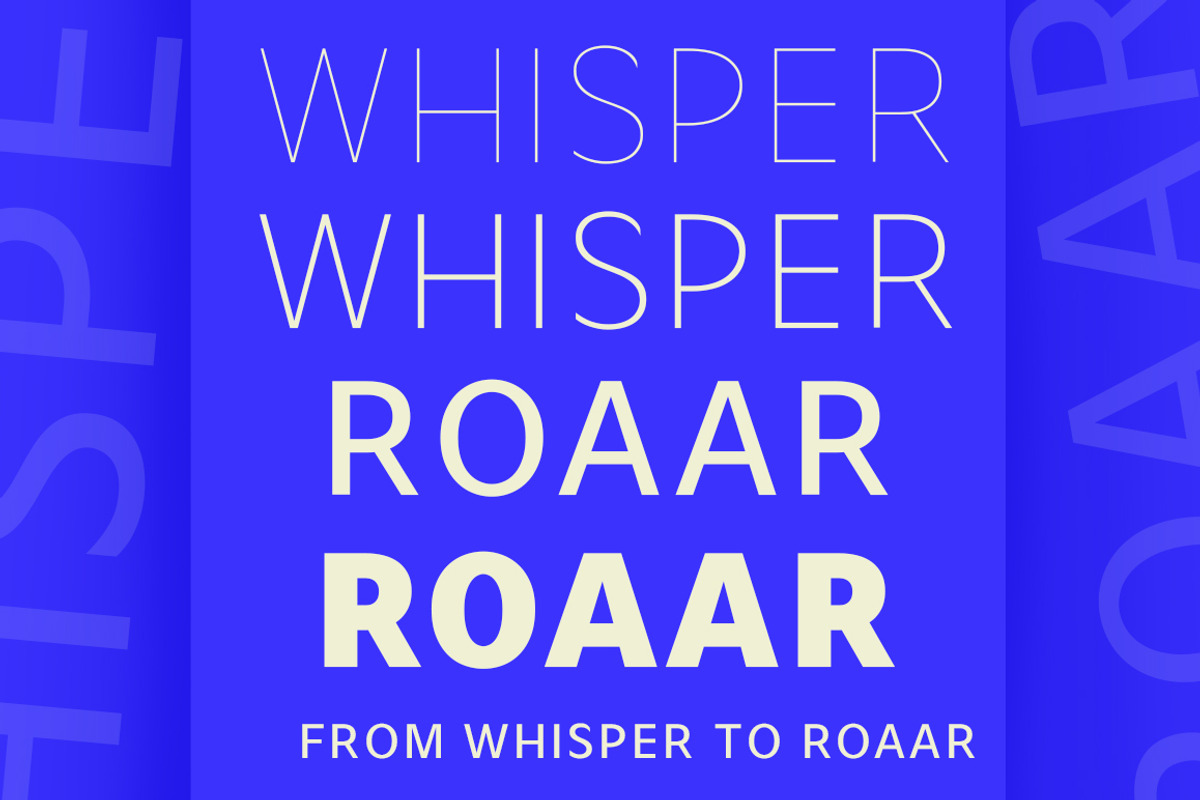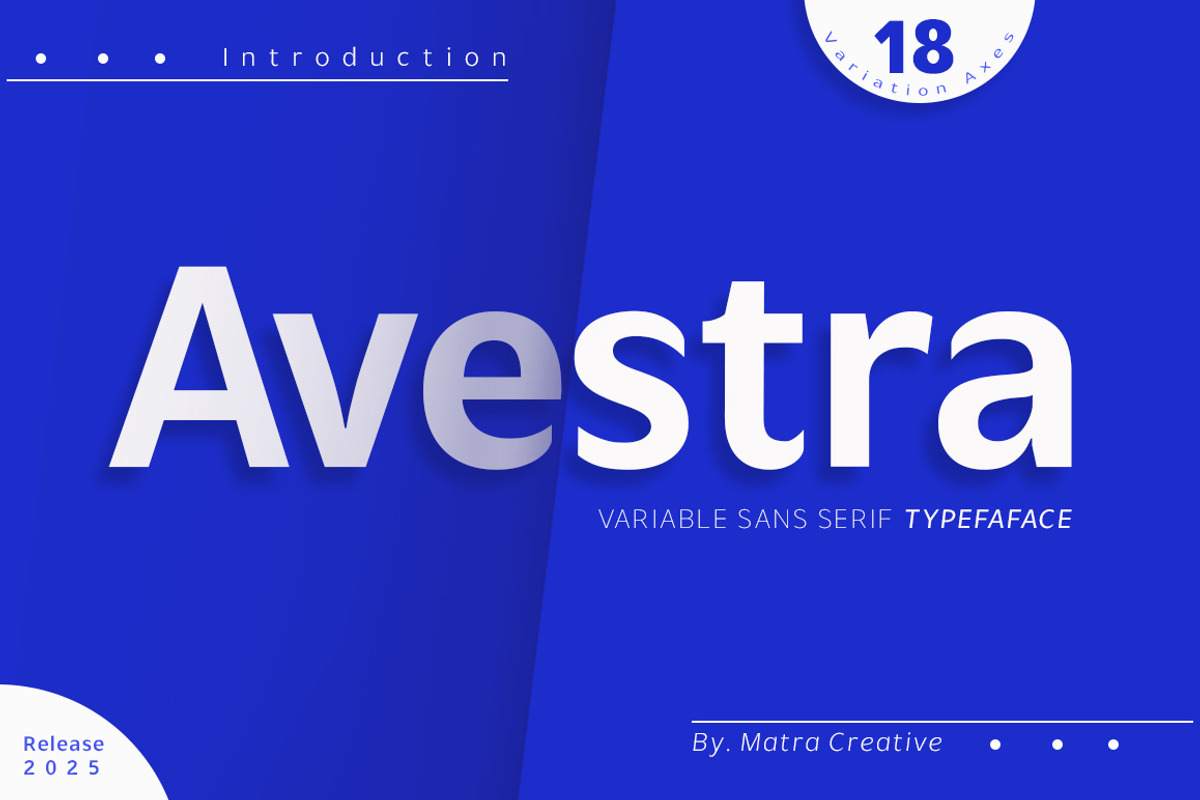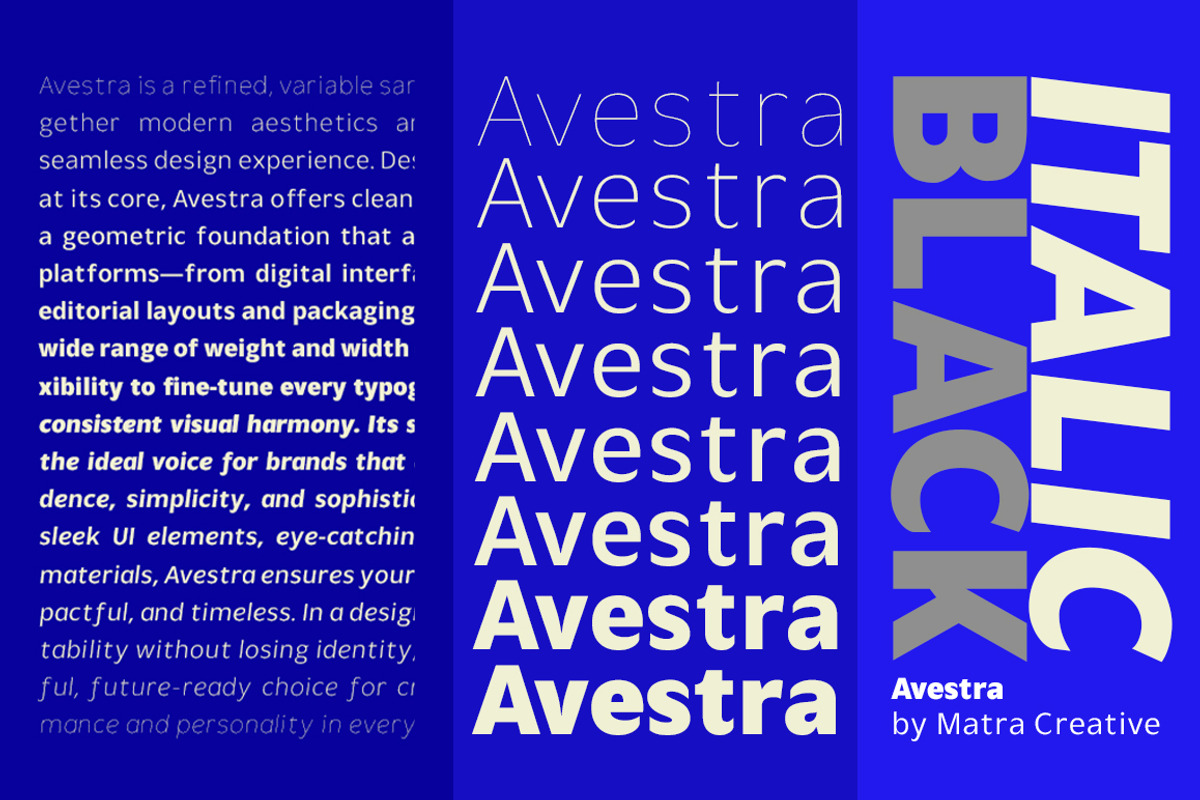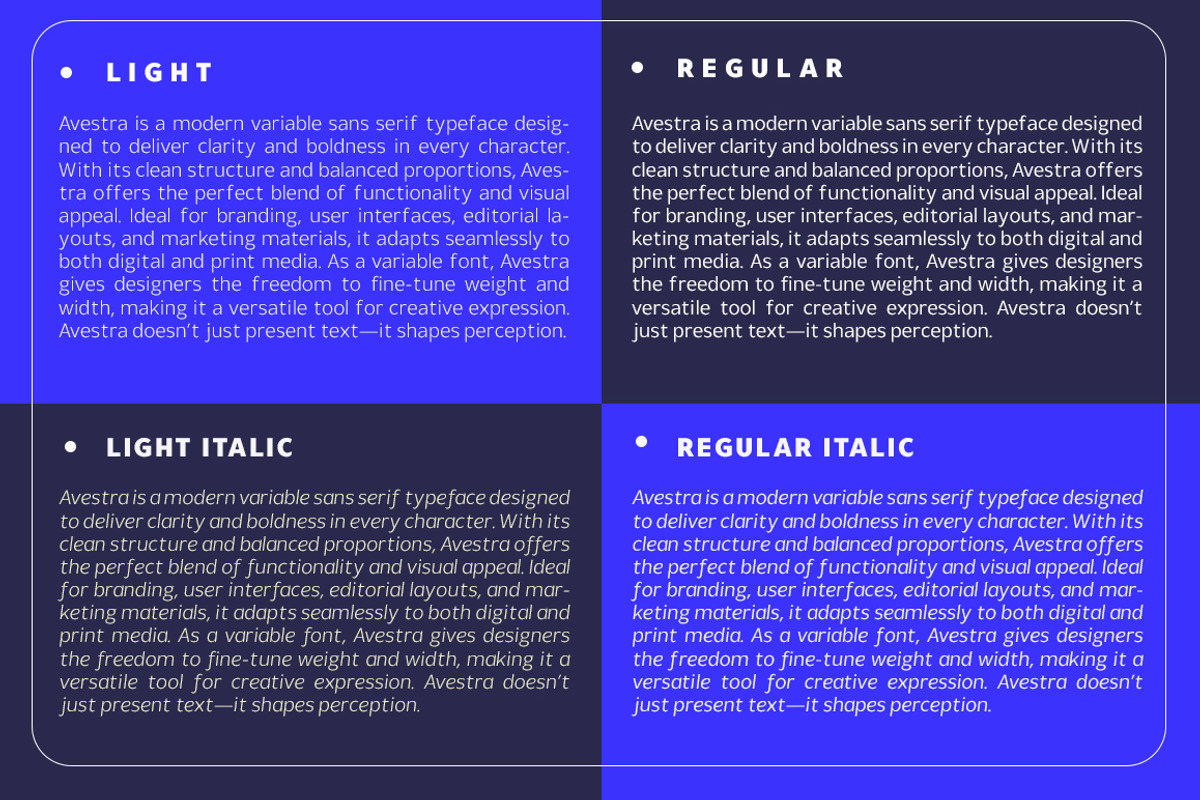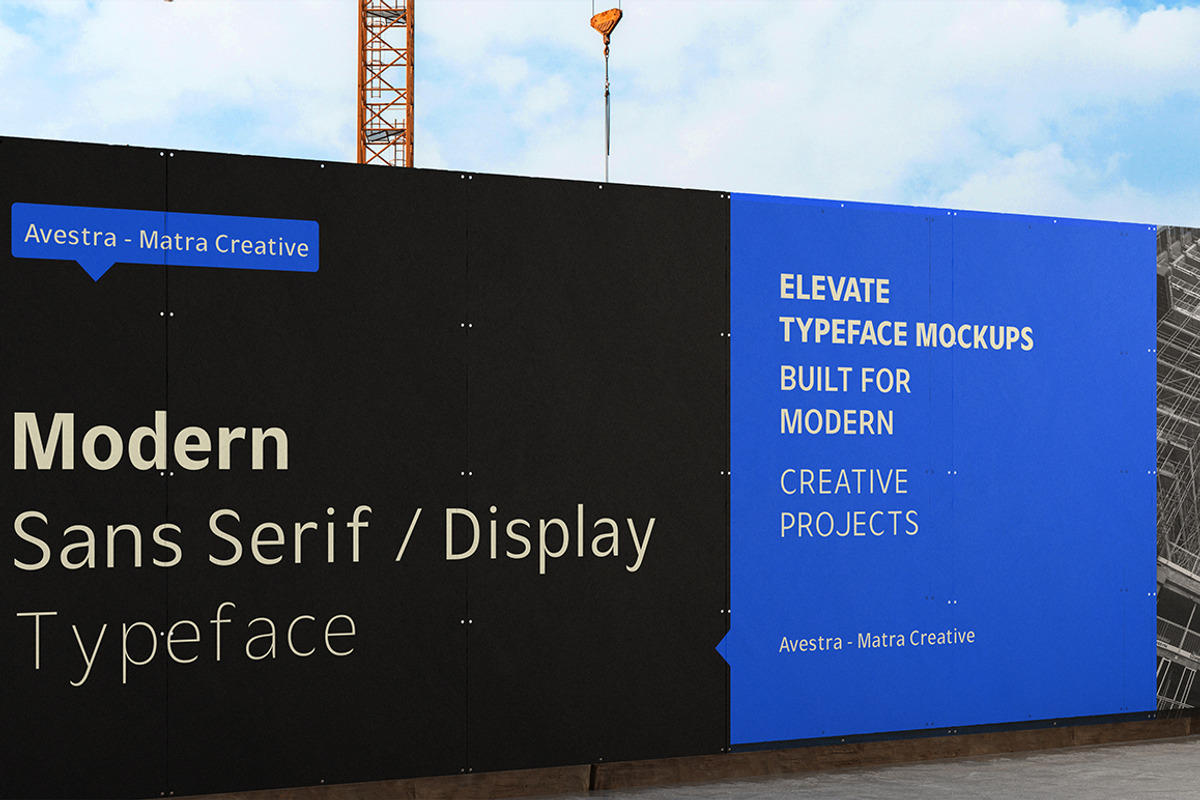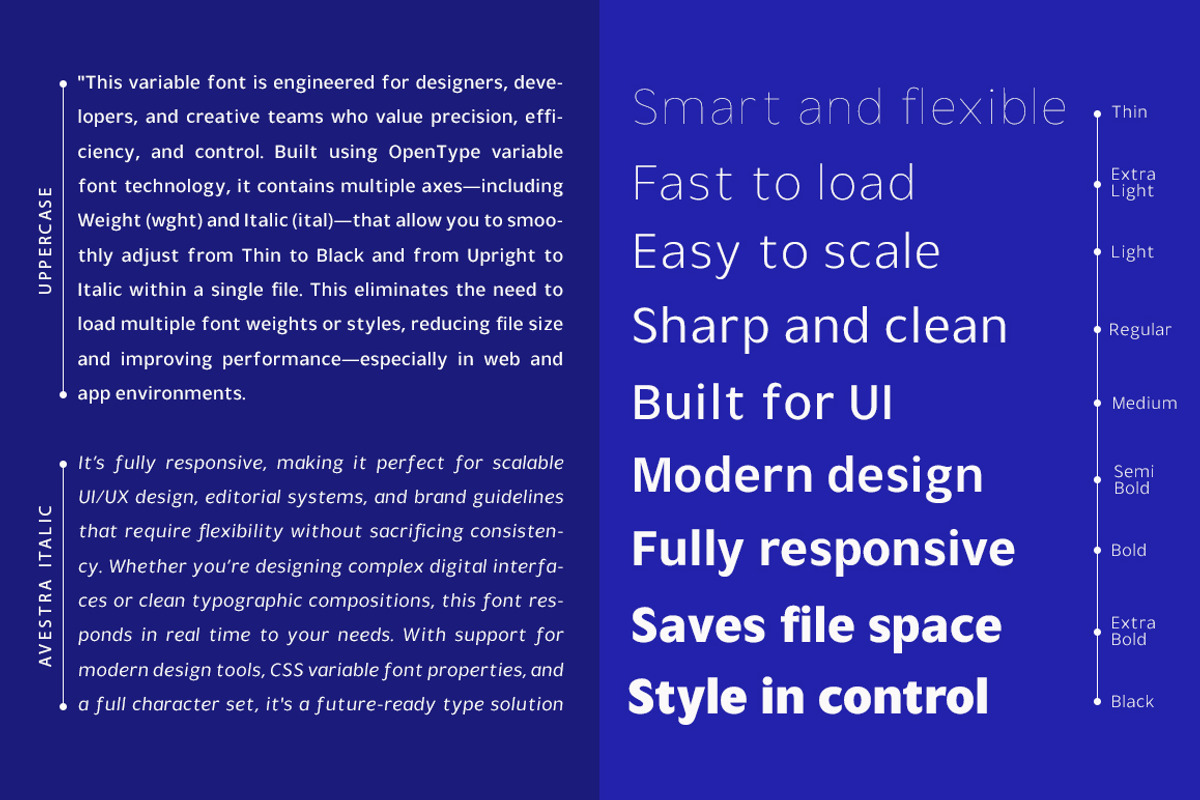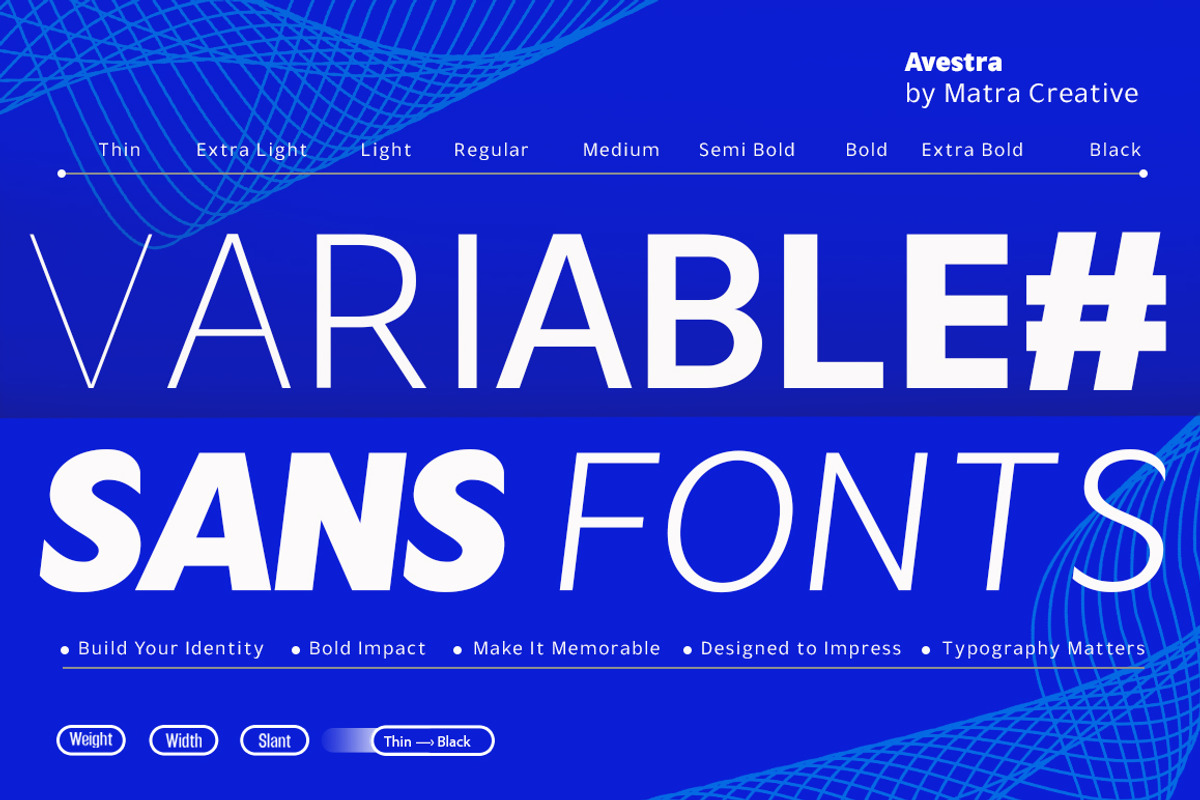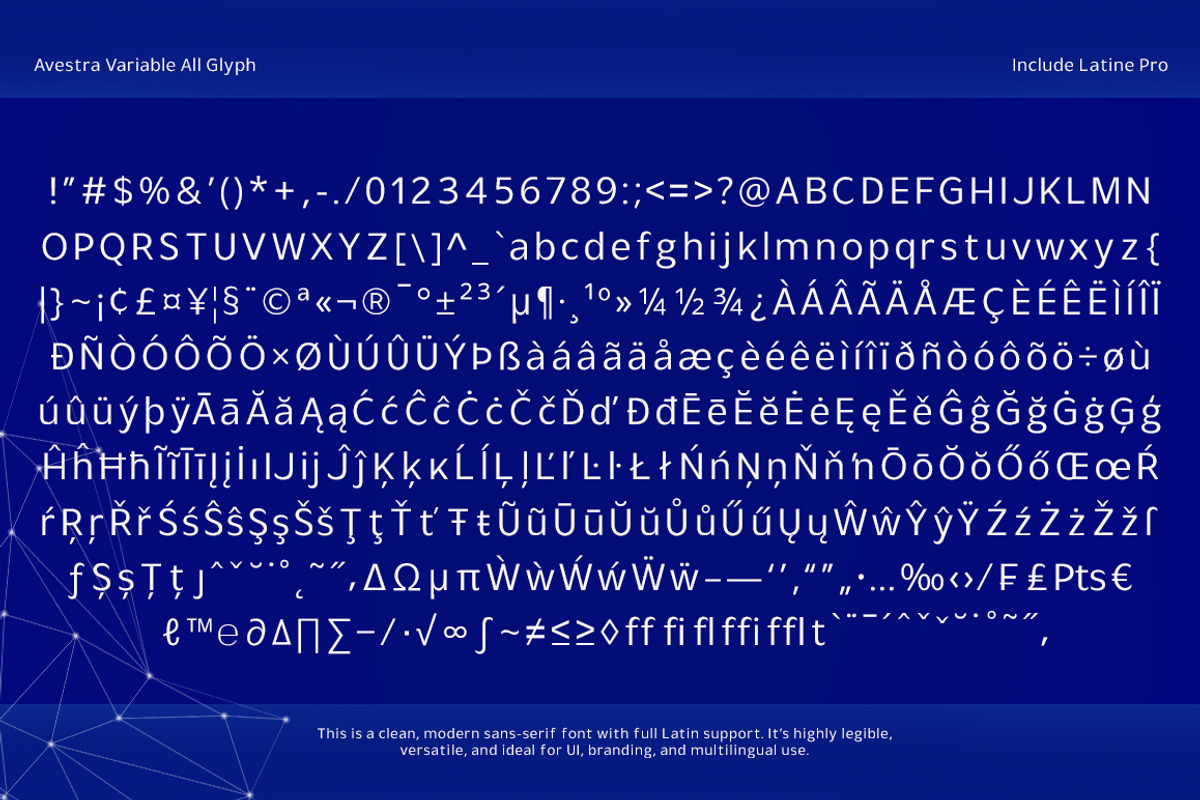
Avestra
Vintora Serif is a variable serif typeface designed to harmonize clarity, elegance, and expressive flexibility. Featuring 18 distinct styles—9 upright and 9 true italics—it offers smooth transitions across weight and tone, giving designers precise control over emphasis and mood.
Its serif structure blends classical proportions with contemporary refinement, creating a visual rhythm that feels both authoritative and approachable. The italic styles are not merely slanted versions—they are meticulously redrawn to deliver authentic typographic contrast and expressive nuance.
Whether used in brand identities, editorial layouts, or digital interfaces, Vintora Serif maintains high legibility while adapting effortlessly to diverse design needs. Inspired by strategic thinking and cultural depth, it’s more than a typeface—it’s a statement of identity, crafted for creators who value originality, technical finesse, and professional polish.